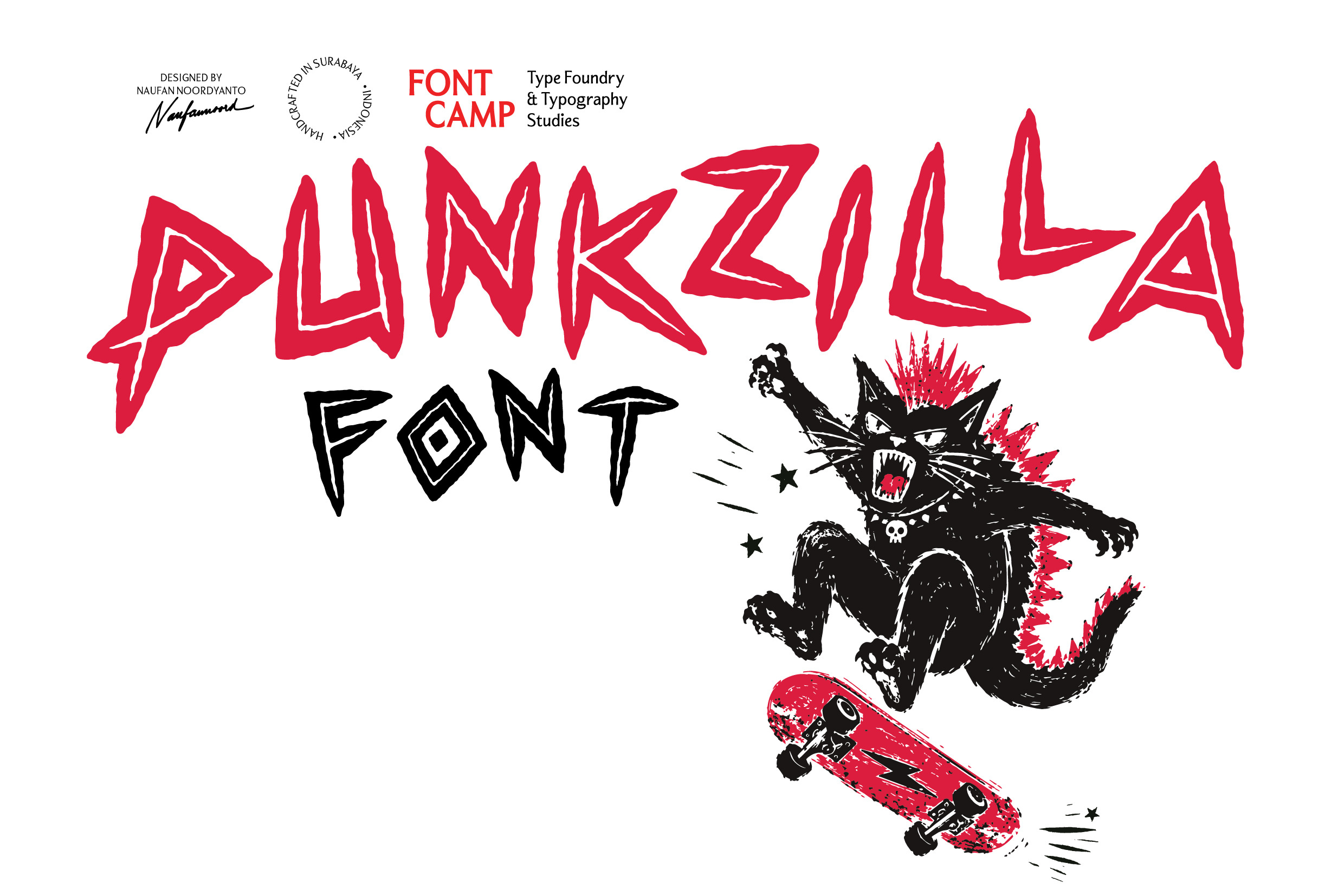
Punkzilla Font
Introducing the "PUNKZILLA" Font.
Punkzilla is a highly expressive, raw, and high-energy display typeface defined by its sharp-edged, asymmetrical, and aggressively distorted letterforms. Its most prominent feature is a jagged outline and a chaotic, jagged structure, giving the text a feeling of untamed attitude and non-conformist movement, mimicking a playful yet rebellious monster-movie aesthetic.
The letterforms are naturally bold and sharp with a heavy reliance on uppercase-style structures, allowing for tight, high-impact text layouts that maintain a commanding and striking presence. An authentic, organic touch shines through its variable angular weights and subtle, hand-drawn imperfections at the terminals of each letter. The unique curves, lightning-like angles, and confident horizontal strokes create a personal, aggressive, and highly artistic aesthetic.
This lively and energetic structure makes Punkzilla an ideal choice for modern alternative branding projects, eye-catching poster headlines, heavy-hitting streetwear merchandise, music album art, comic logotypes, or any creative design that embraces a raw, underground indie vibe.
Expansive character library: engineered with 374 meticulously crafted glyphs, providing full coverage for high-impact displays, symbols, and comprehensive punctuation across a single definitive style (Regular).
Commanding All-Caps design: specially structured as an All-Caps typeface with different letterforms between uppercase and lowercase keys, optimized for casual headlines, bold logotypes, and tactical branding.
Global linguistic support: built with an extended character set to ensure seamless compatibility with multiple languages, supporting diverse diacritics and special ligatures.